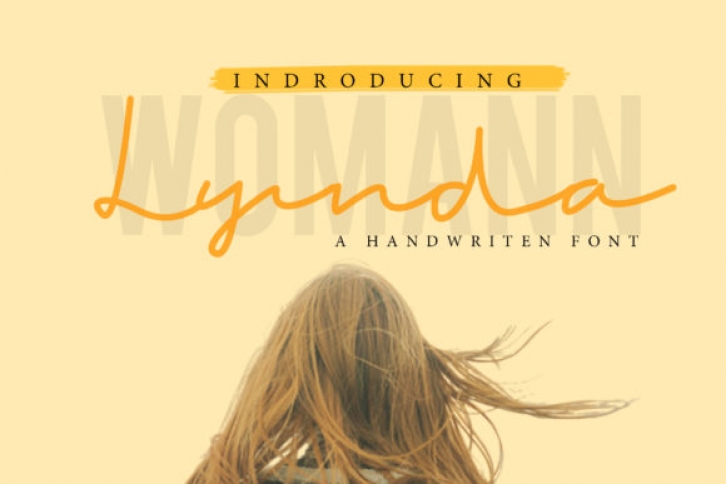
Lynda is a flowing and sweet handwritten font. It is the best choice for creating eye catching logos, branding and quotes. Every letter has a unique and beautiful touch, which will make your design come alive!